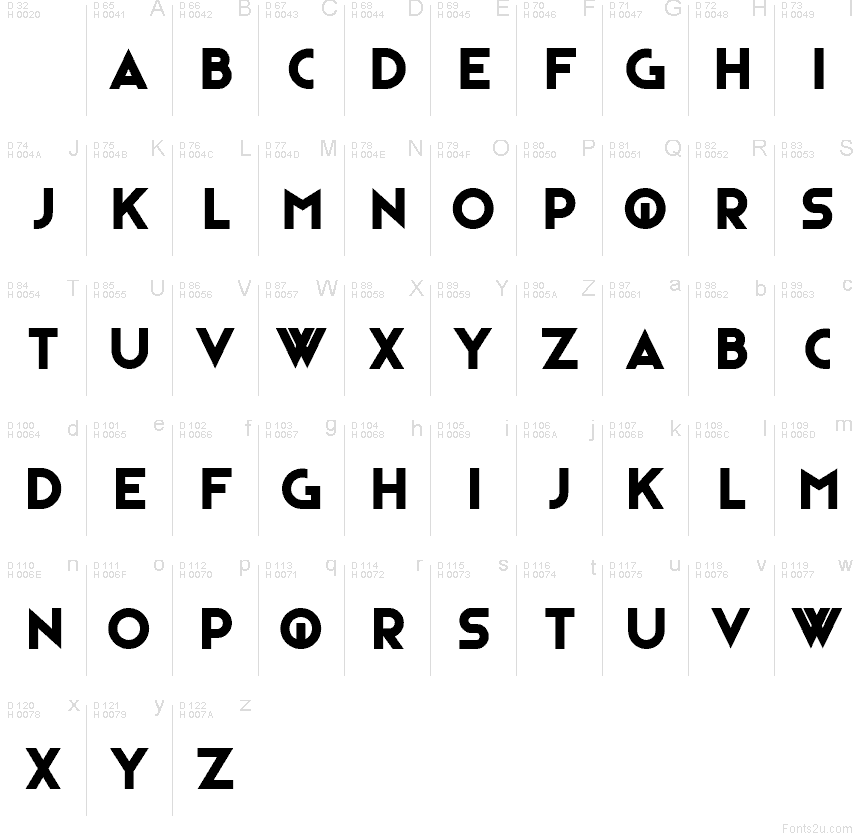
Papillon Extravagant Regular
Papillon Extravagant font by Vladimir Nikolic is a free sans serif typeface that turns every word into a bold graphic object. Heavy, blocky strokes, a razor-straight spine, and that punchy circular “O” give it a muscular, almost architectural feel, while the tight rhythm keeps it compact and high-impact. As part of the Papillon family, it carries a strong, confident presence that feels both modern and slightly retro, like signage carved out of solid ink.
Using Papillon Extravagant, headlines don’t just speak—they shout from the page. This free font works beautifully for logos, posters, album covers, product packaging, event branding, and social media graphics where you want sharp edges and thick strokes to hit hard at a distance. Set it large and keep the color palette simple, then pair it with a lighter, neutral sans serif for supporting text to let its bold geometry take center stage.